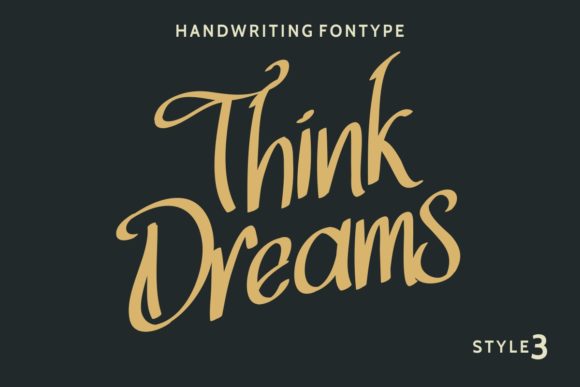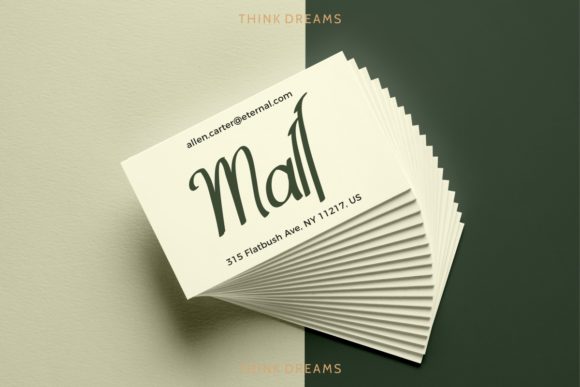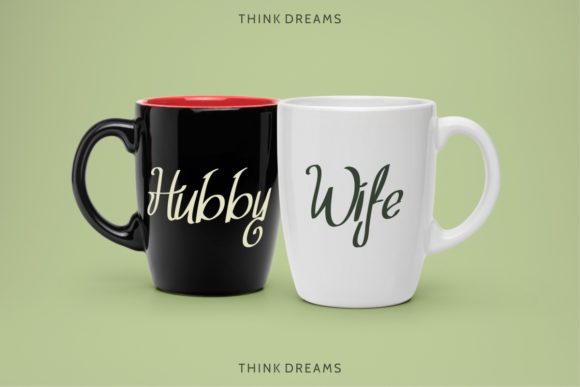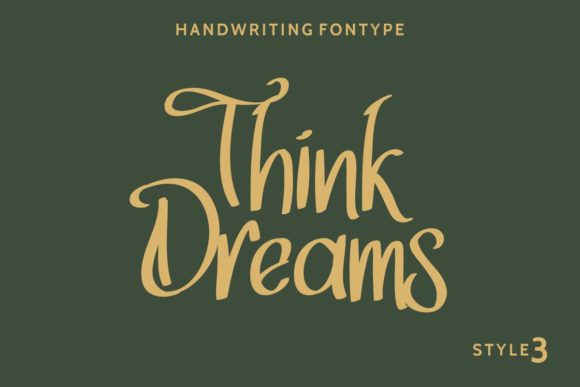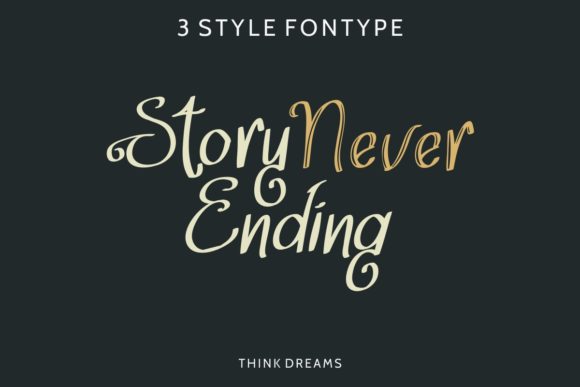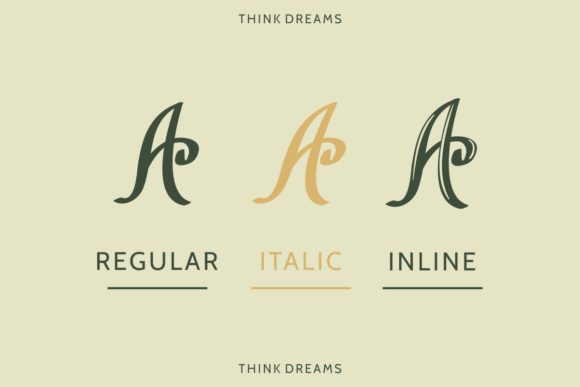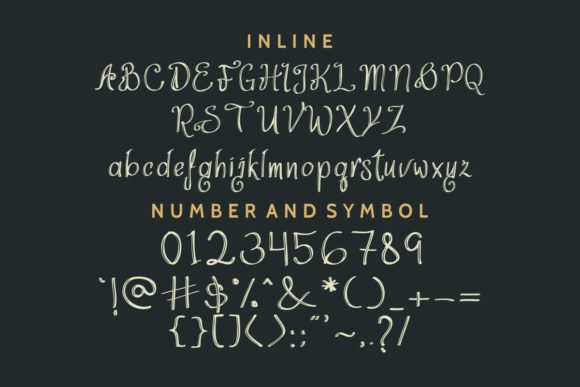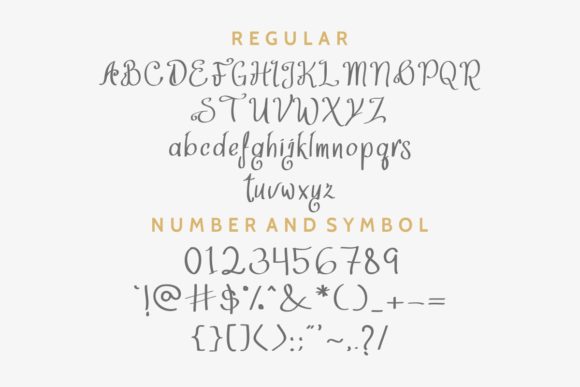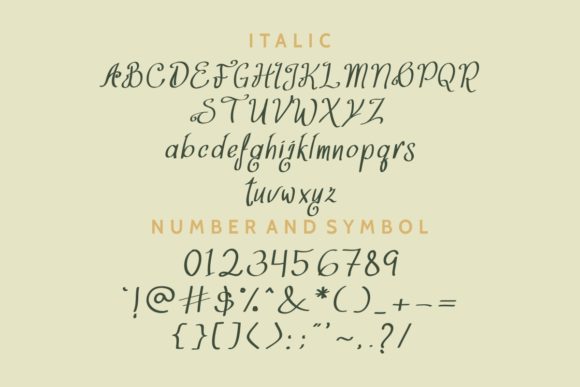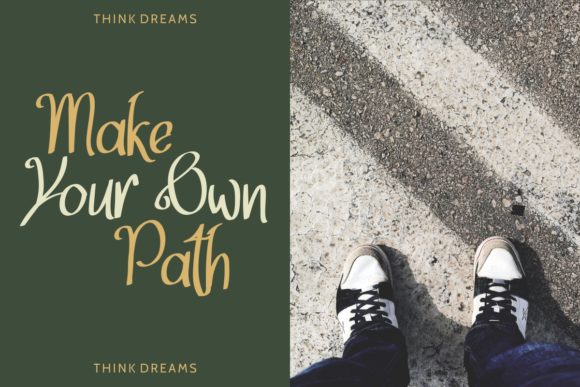
Think Dreams Font
About Think Dreams Font
Think Dreams is a dreamy and casual handwritten font with a beautiful feel. It will add an authentic charm to any design project.